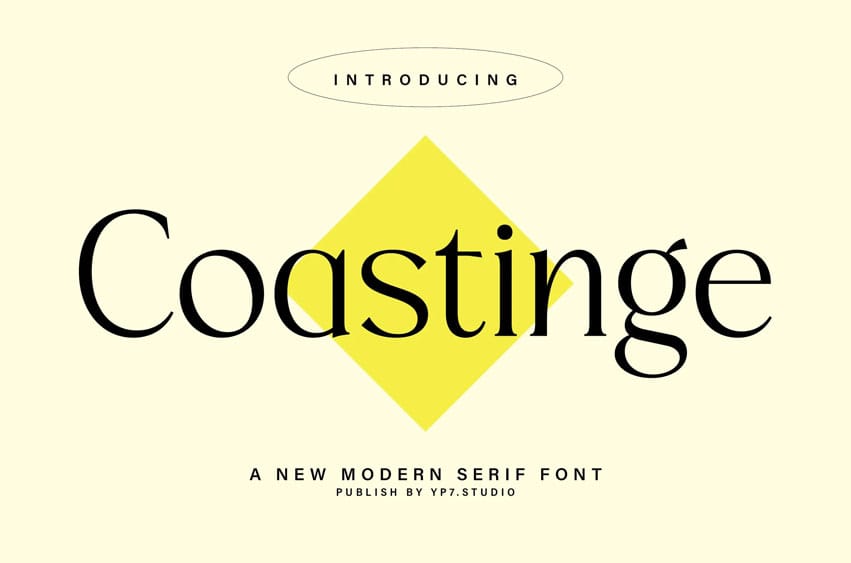
Coastinge Font Modern Serif Font – Coastinge.
This font is well-suited for a variety of contexts, such as print design, promotional materials, or magazine layouts.